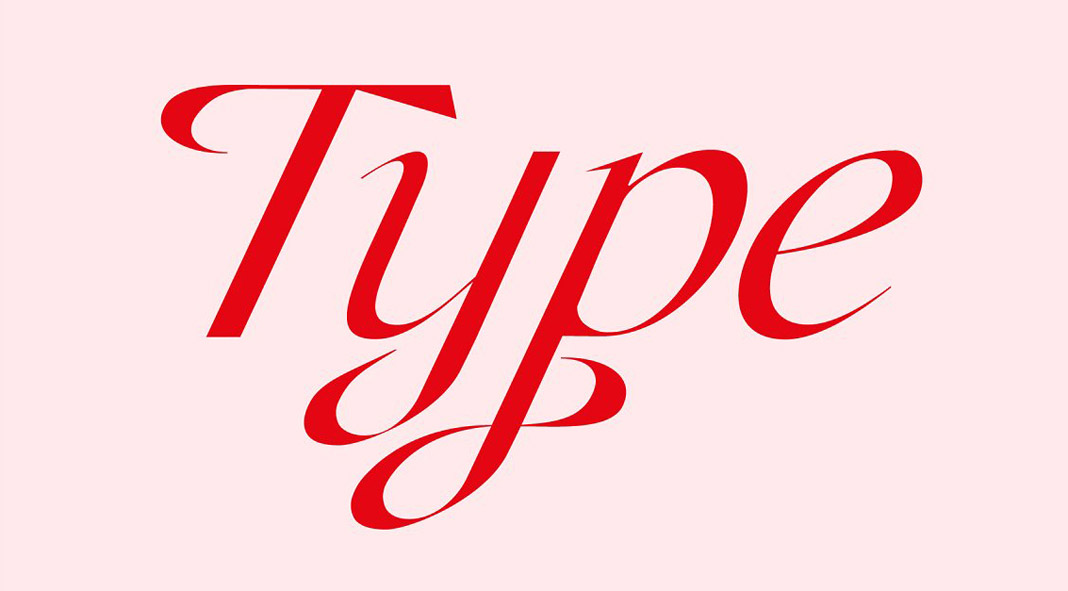
Say hello to Champagne Cartel, a super-stylish serif/sans blend.
Created and published by Tropical Type, the Champagne Cartel font is based on the style of an edgy serif mixed with soft curves. The result is a bold yet stylish typeface. Equipped with true italics, the font is perfect for fashion branding and editorial design.